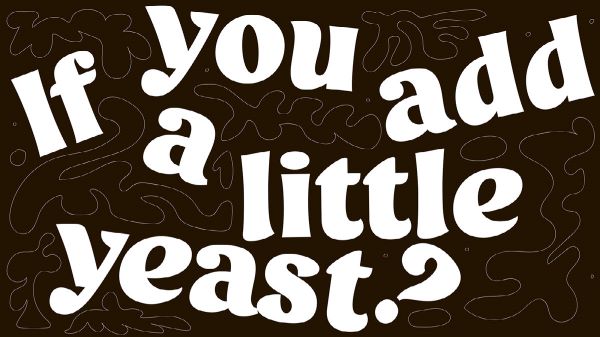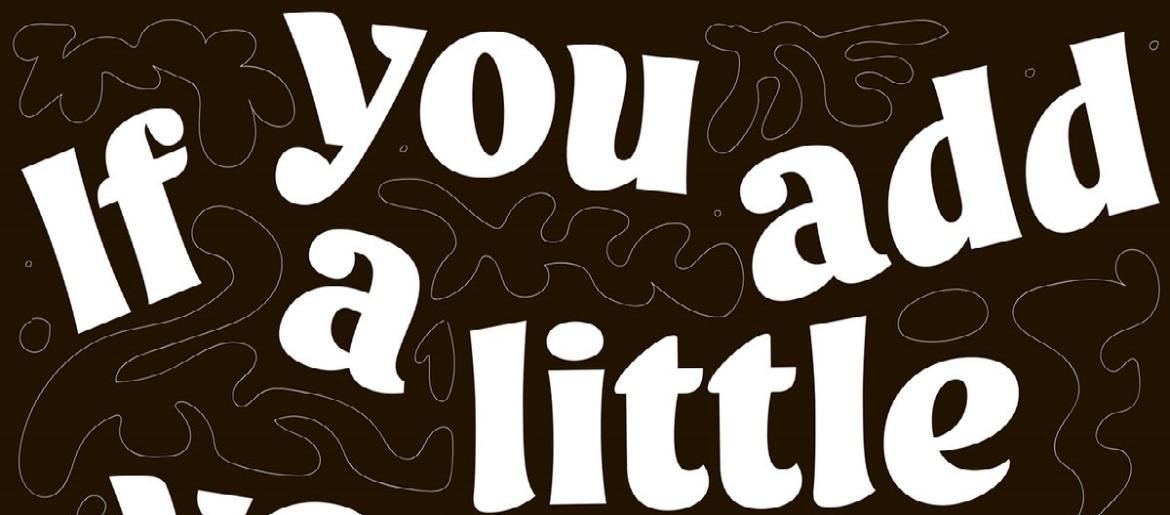
Yeast Font
Yeast by Ilya Mikhailovsky is a display typeface that earns its name through its visual character: rounded, organic, pleasantly inflated letterforms that carry a warmth and approachability somewhere between artisan food culture, good-humoured illustration, and the kind of hand-painted signage found on boutique bakeries, craft beverage labels, and neighbourhood food markets. Released as a free personal-use font at version 0.3, indicating ongoing development with further refinements planned.